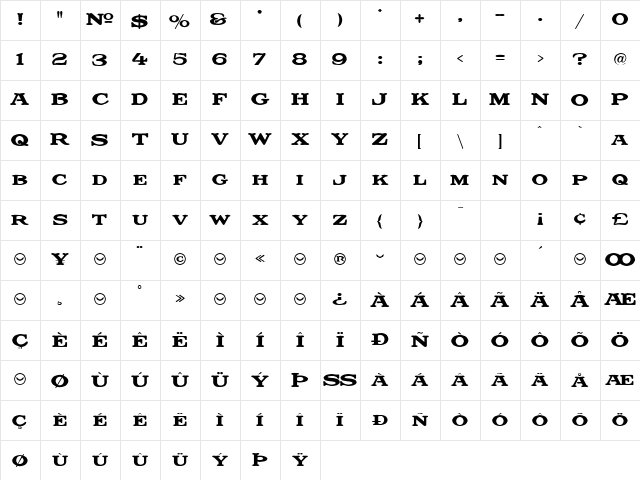
LHF The Bat Regular Free Font
LHF The Bat Regular
Design Context for LHF The Bat
LHF The Bat is a composed and adaptable typeface that performs quietly and consistently across a wide range of design contexts.